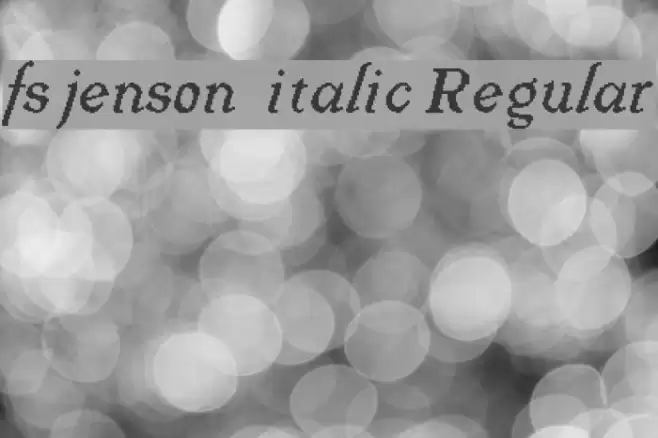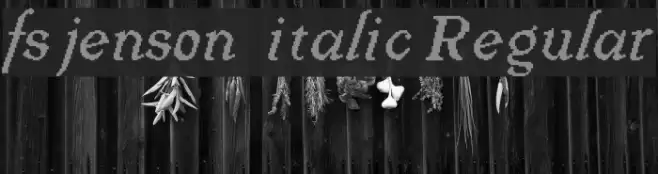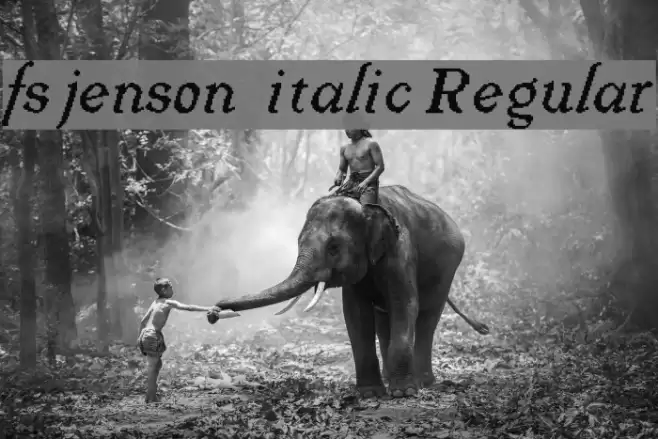
fs jenson 1 italic Regular Font
fs jenson 1 italic Regular Description
This font exhibits a classic serif style with a distinct italic slant, giving it an elegant and sophisticated appearance. The characters are well-defined with moderate contrast between thick and thin strokes, enhancing readability while maintaining a stylish flair. The uppercase letters are slightly taller than the lowercase, which are rounded and smooth, contributing to a harmonious flow. The numerals and special characters are consistent with the overall design, ensuring a cohesive look across all text elements. This font is suitable for projects that require a touch of refinement and tradition.
Elegant serif font with an italic slant and moderate contrast from Uncategorized fonts.
- Overall Style: Classic